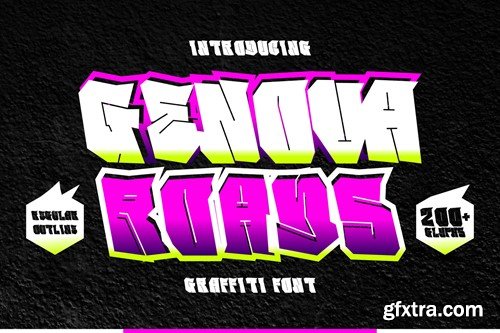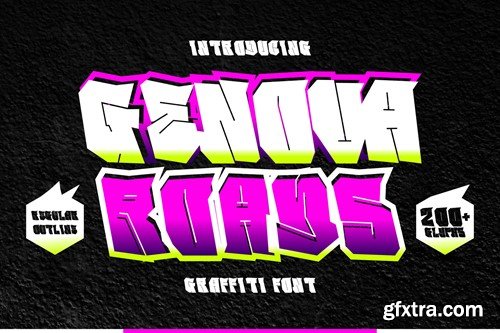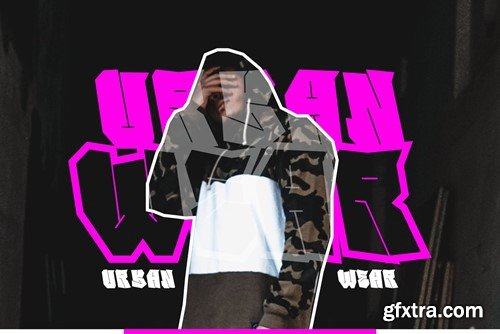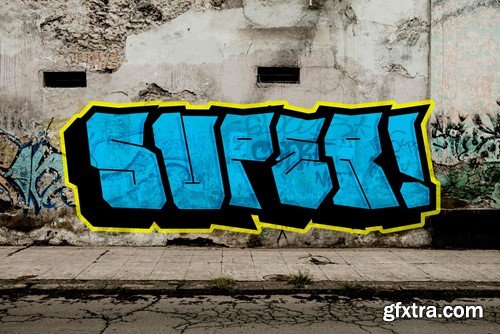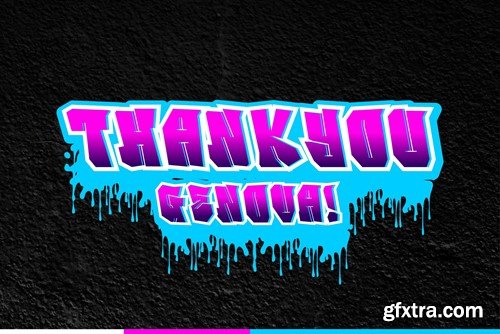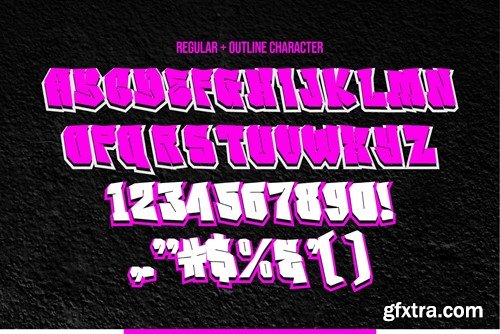
Genova Roads - Bold Graffiti Font M97N8CV
Genova Roads - Bold Graffiti Font
Genova Roads is a powerful and commanding graffiti font that channels the energy of the streets. With its bold, expressive lettering, it captures the essence of urban artistry and rebellion, making it the ultimate choice for projects seeking an edgy, streetwise aesthetic. Whether it's for posters, street art, or designs demanding a gritty and impactful style, Genova Roads infuses your typography with the raw, unapologetic spirit of the streets, leaving an unforgettable mark on your audience.